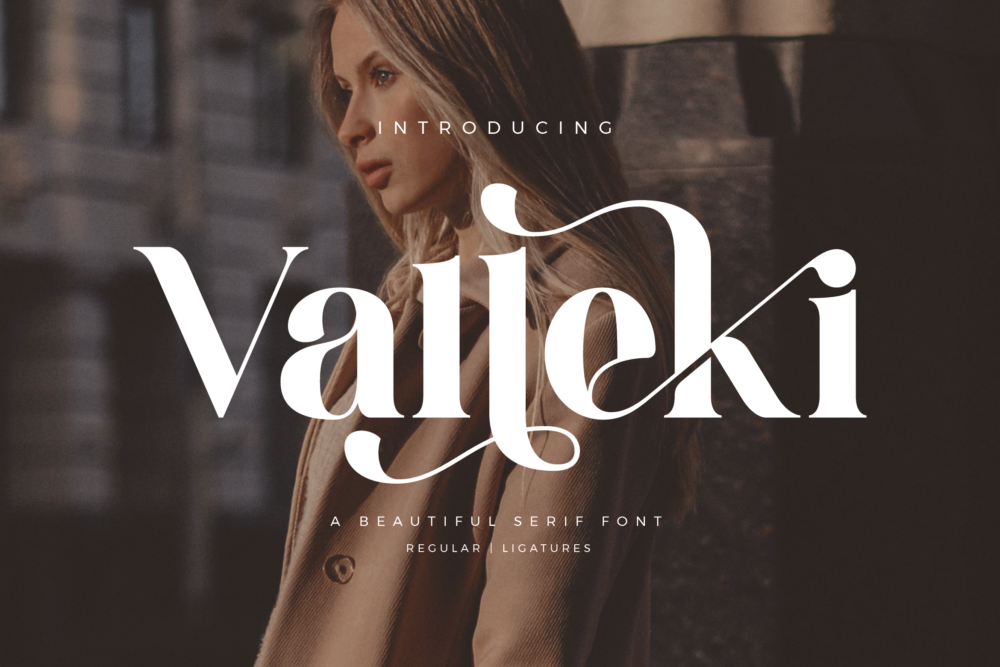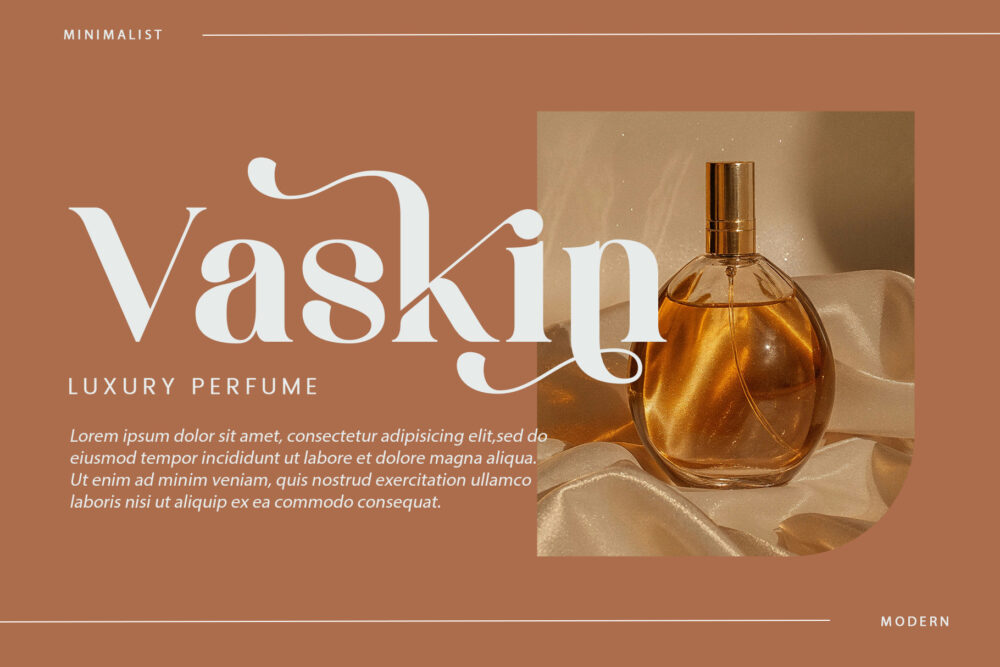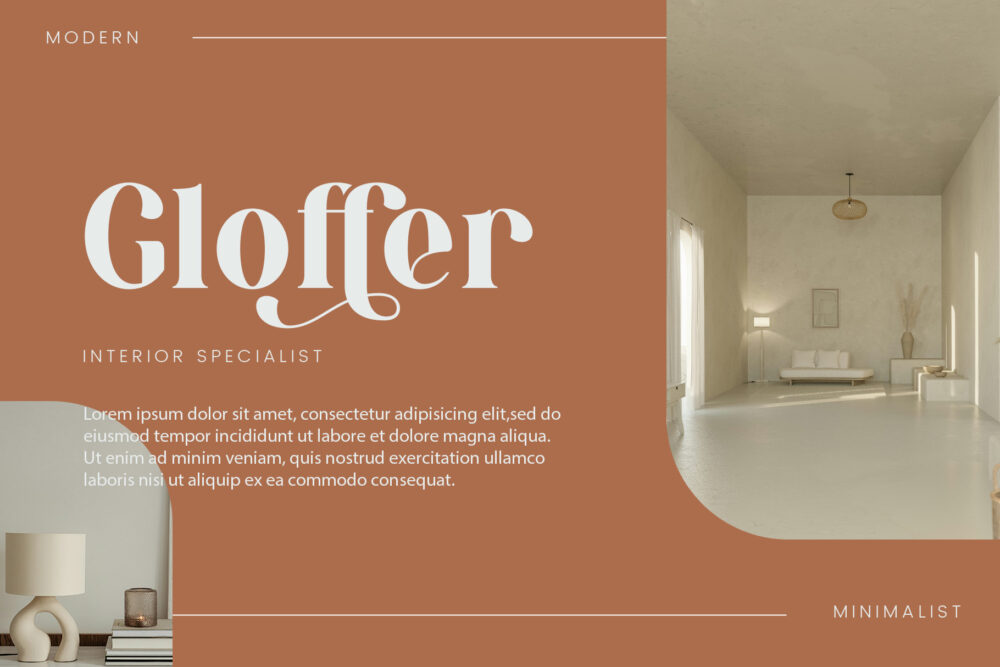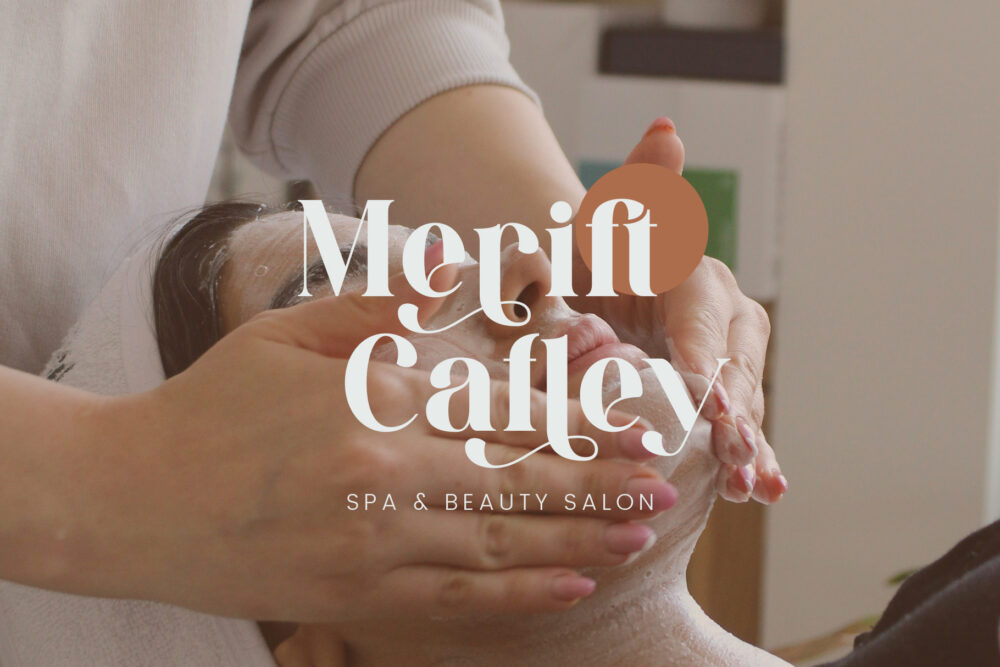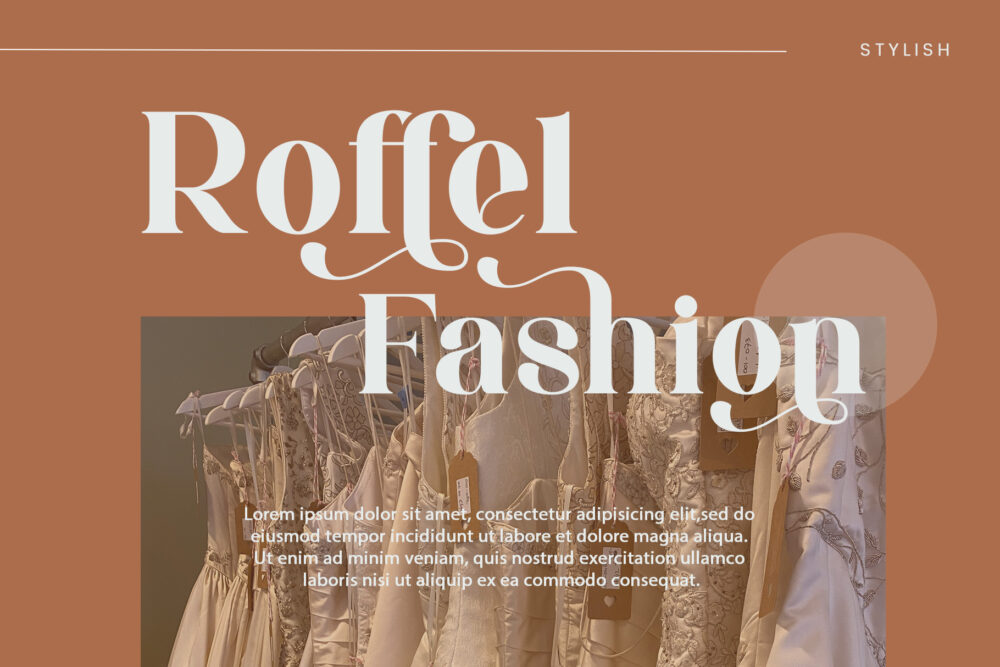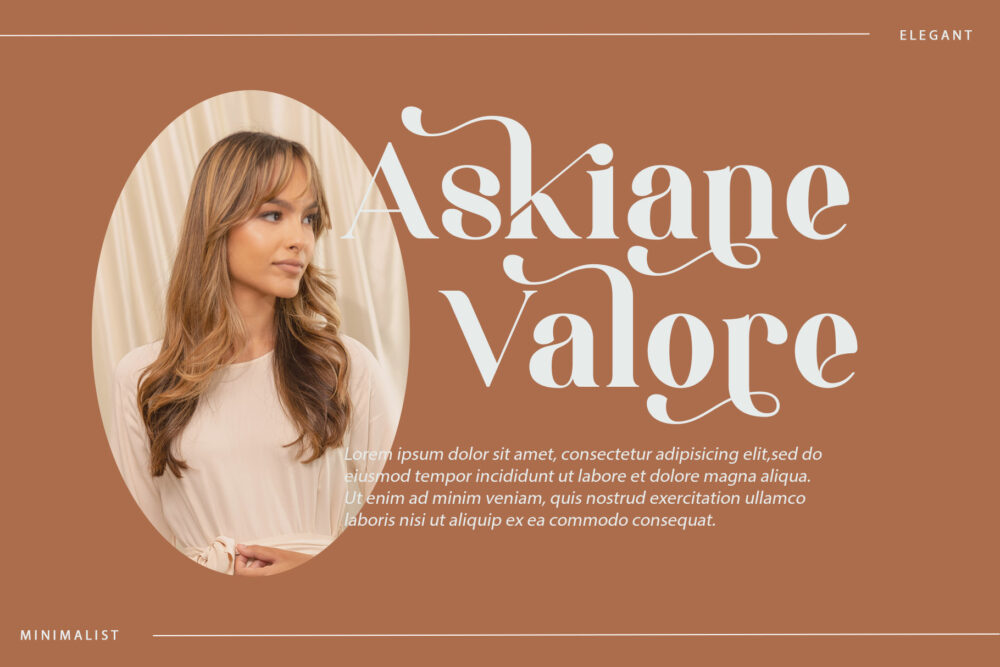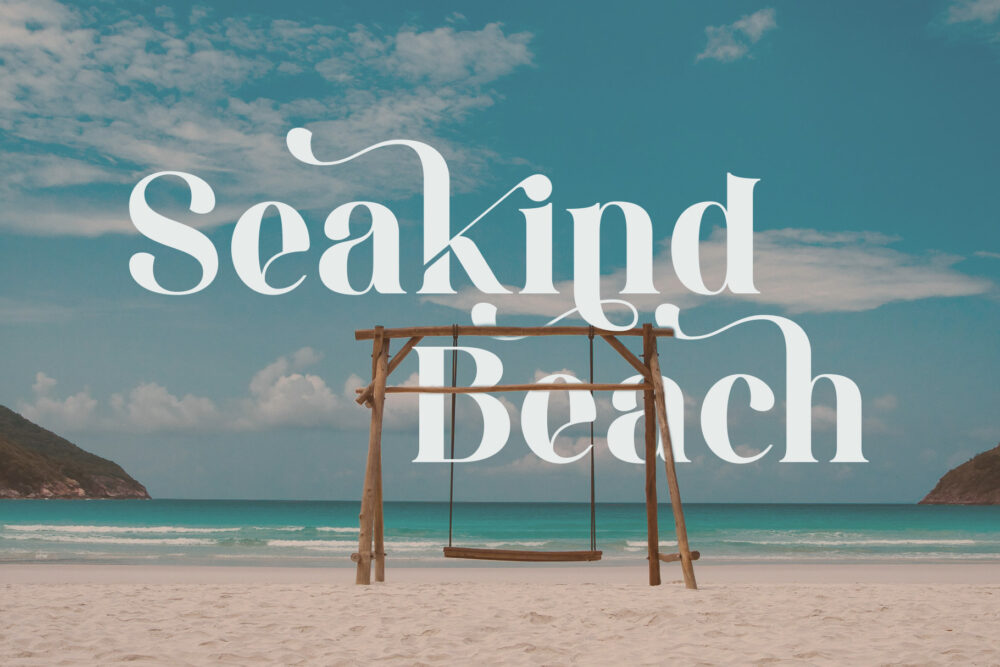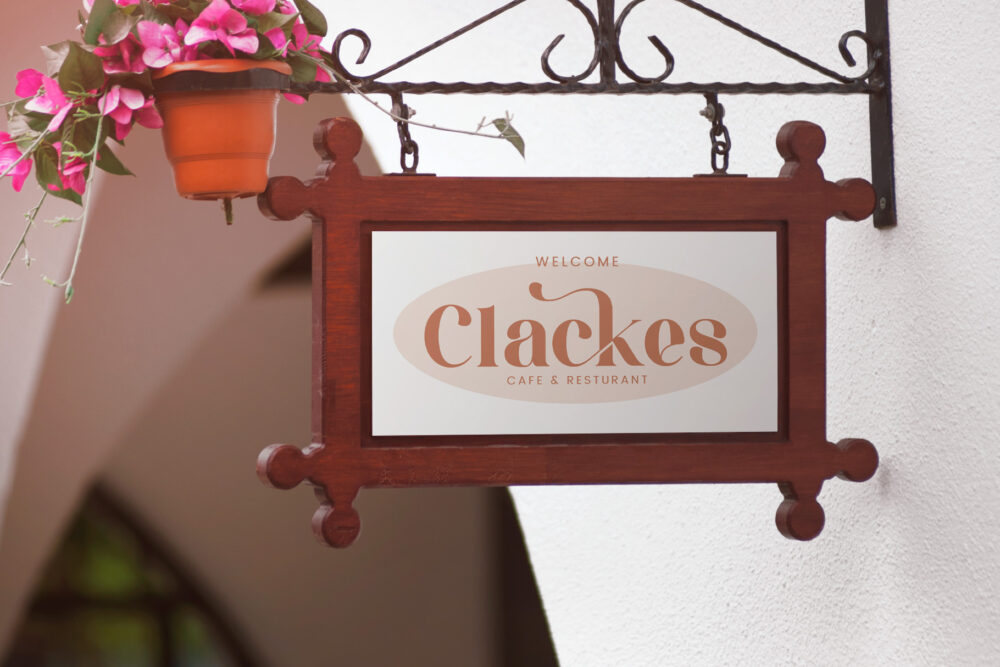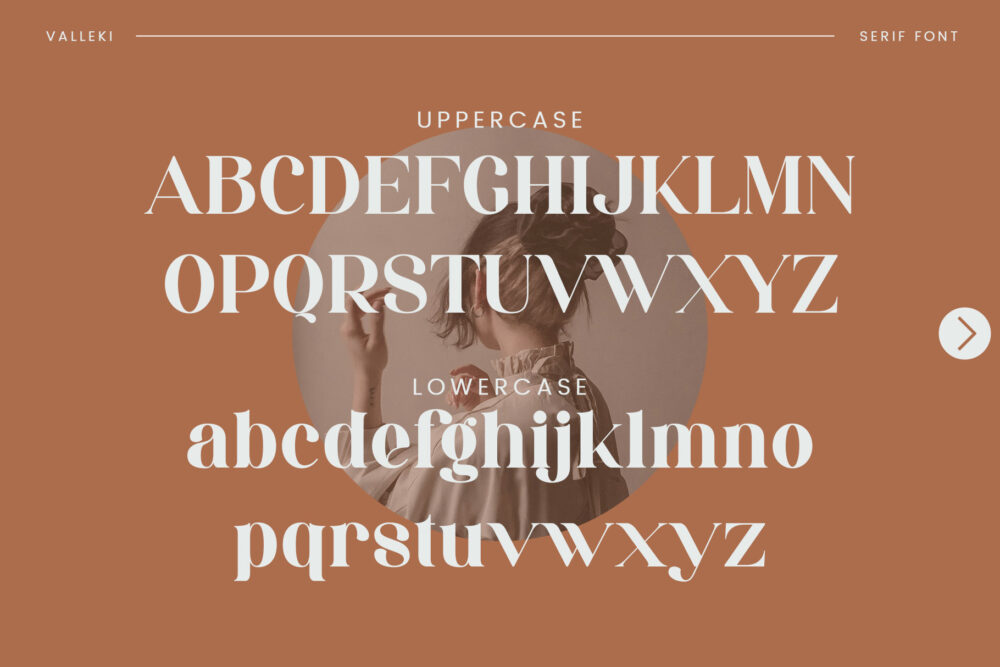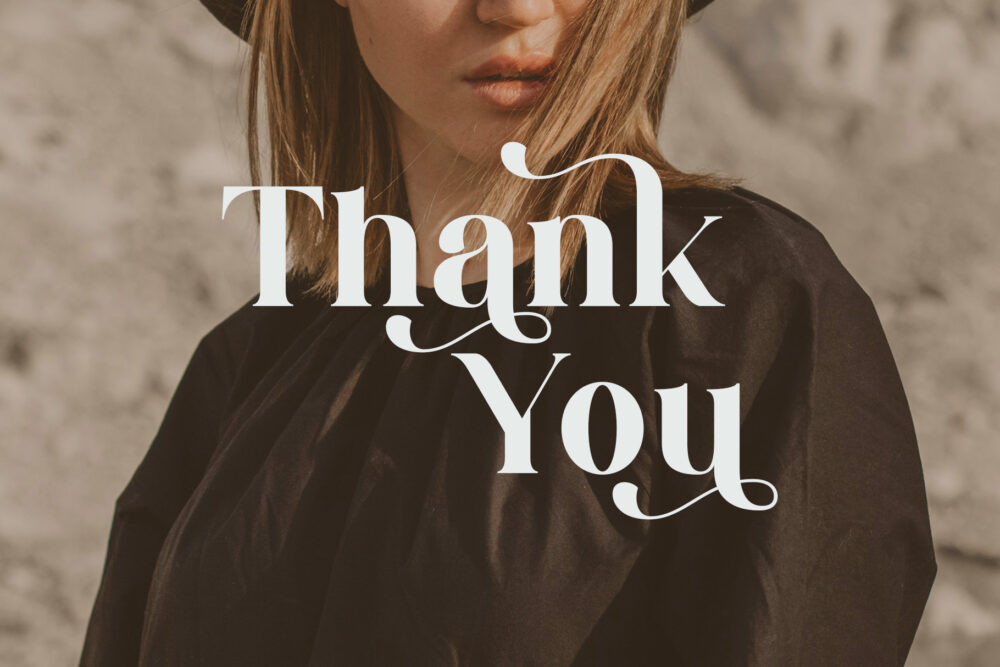
Valleki Stylish Ligature Typeface, inspired by the famous minimalist logo perfect for the purposes of designing templates, brochures, videos, advertising branding, logos and more.